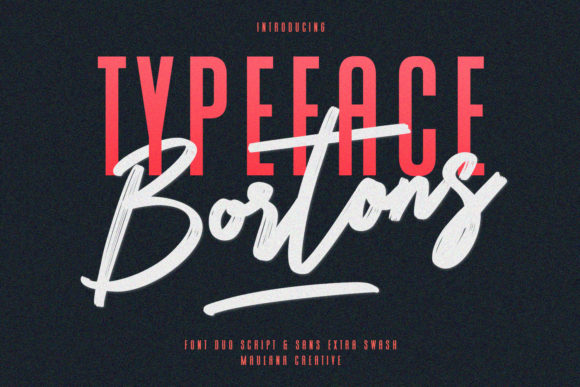
**Introducing Bortons Font: The Epitome of Creative Expression**
Prepare to be mesmerized by Bortons Font, a breathtaking duo font that combines the bold impact of a display font with the delicate elegance of a script font. Created by the visionary Maulana Creative, Bortons is a typographic masterpiece that will elevate your designs to unparalleled heights.
Indulge in the versatility of Bortons, a font that effortlessly adapts to a myriad of creative endeavors. Whether you're crafting captivating headlines, designing eye-catching logos, or penning heartfelt letters, Bortons will infuse your words with an unmatched charm and sophistication.
**Why Choose Bortons Font?**
* **Unleash Your Creativity:** Bortons empowers you to unleash your imagination and create designs that captivate and inspire. Its unique character and harmonious blend of styles will transform your creative visions into stunning realities.
* **Elevate Your Designs:** Experience the transformative power of Bortons as it elevates your designs to new levels of excellence. Its bold display typeface commands attention, while its delicate script adds a touch of finesse, creating a visual symphony that will leave your audience in awe.
* **Express Yourself Uniquely:** With Bortons, your words take on a life of their own. Its expressive characters convey emotions and ideas with unparalleled clarity, allowing you to communicate your message with authenticity and impact.
**Perfect for a Multitude of Designs:**
* **Captivating Headlines:** Craft headlines that demand attention and leave a lasting impression. Bortons will ensure your messages stand out from the crowd, captivating your audience from the very first glance.
* **Eye-Catching Logos:** Design logos that exude professionalism and creativity. Bortons' versatility allows you to create logos that perfectly reflect your brand's identity and values.
* **Heartfelt Letters:** Pen letters that touch the hearts of your recipients. Bortons' delicate script will add a personal touch to your words, making them feel like cherished keepsakes.